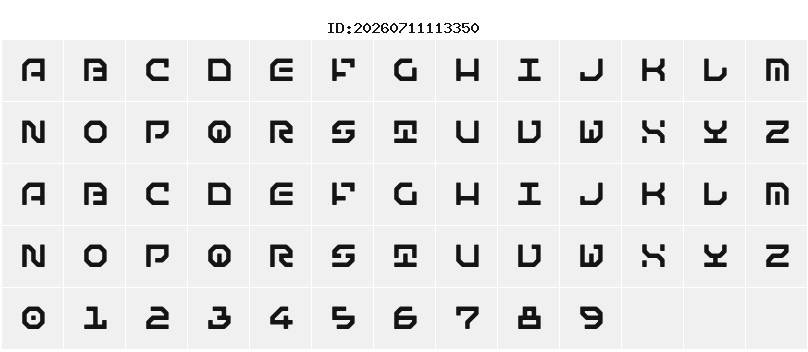
Matematica Preview
• Font Name: Matematica
• Full Font Name: Matematica
• PostScript Name: Matematica-Regular
• Designer: Akos Polgardi
• Manufacturer: Akos Polgardi
About Matematica.otf
Matematica.otf is a modern, elegant sans-serif font designed for ultimate readability and visual harmony. Perfect for branding, headlines, web design, and print materials.